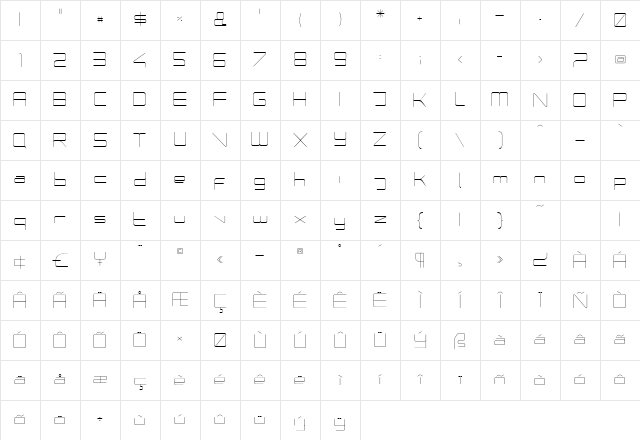
PhutureRndClsd Regular
Design Context for PhutureRndClsd
PhutureRndClsd is a composed and adaptable typeface that performs quietly and consistently across a wide range of design contexts.